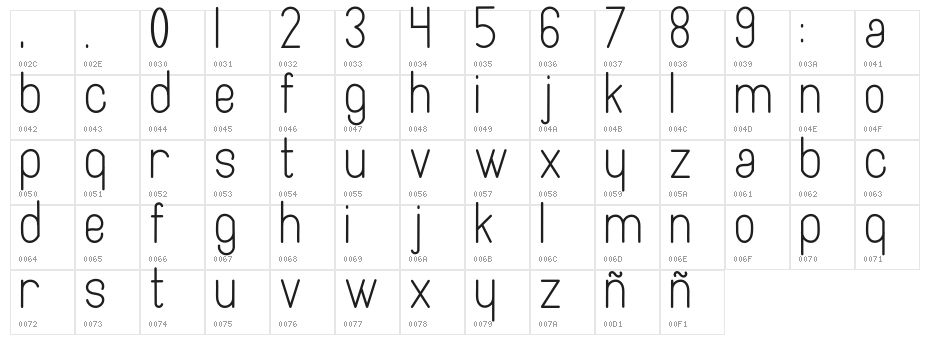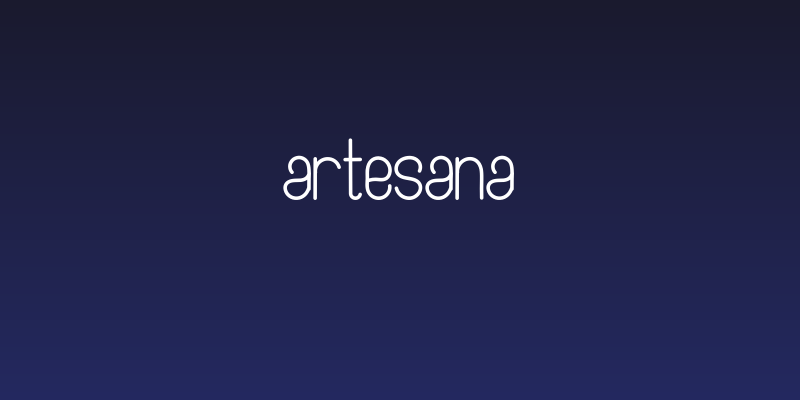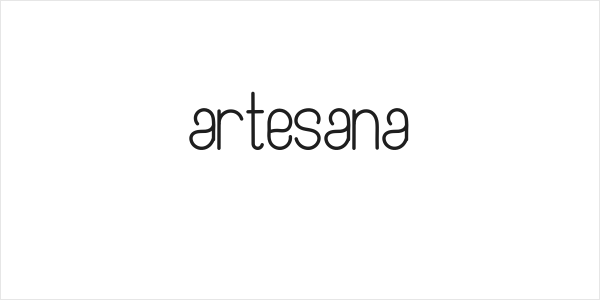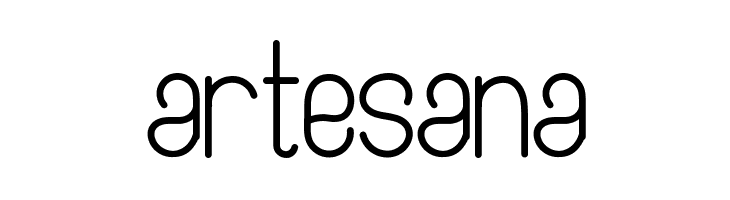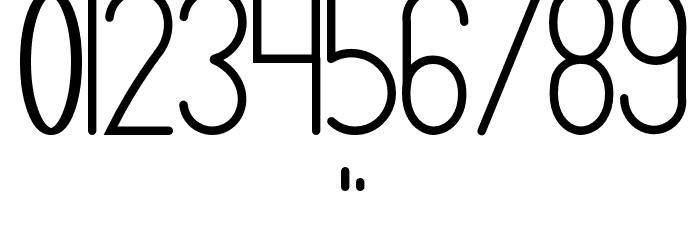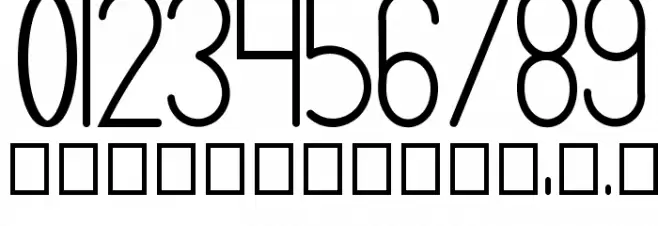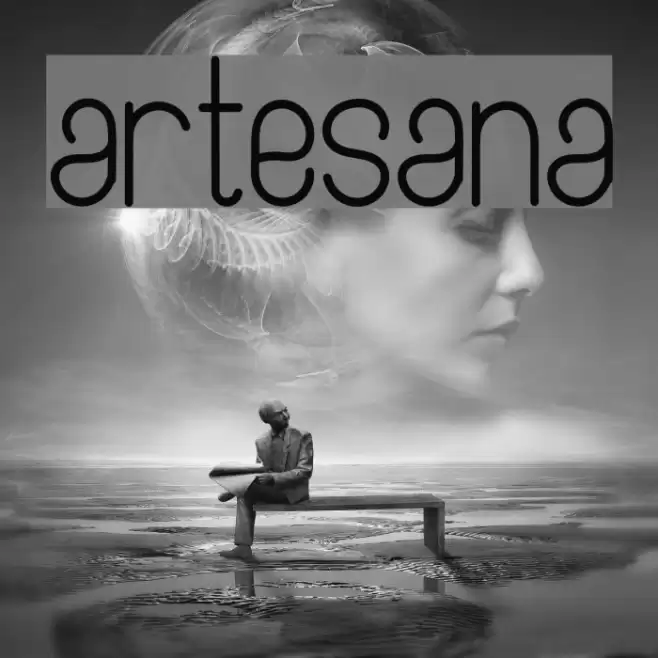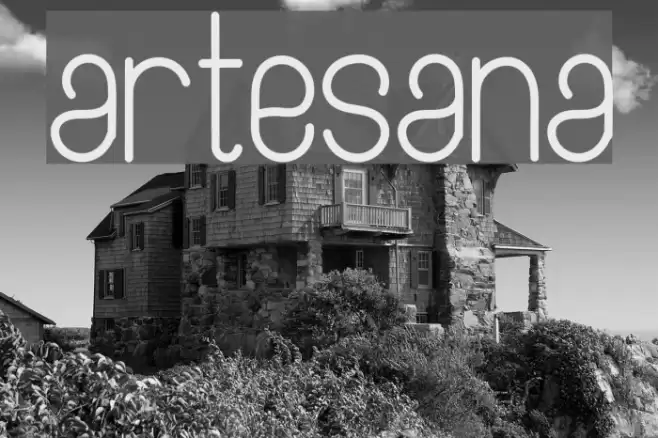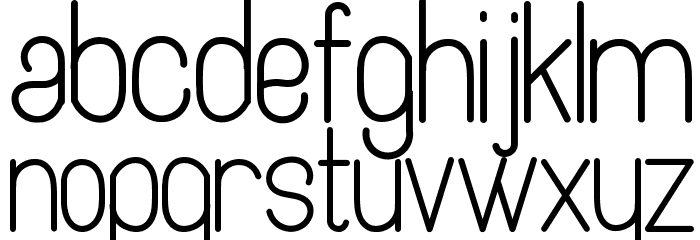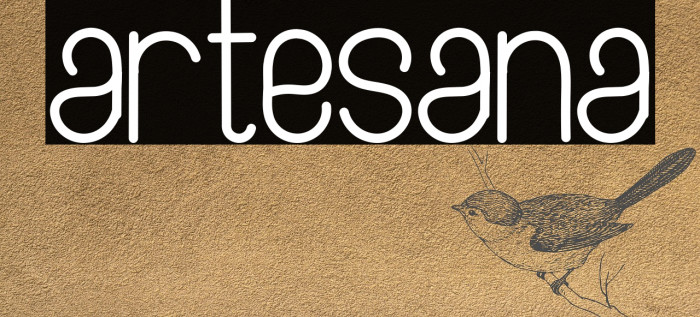
Artesana Font
Artesana Description
This font features a sleek, modern design with rounded edges and a clean, minimalist aesthetic. The characters are uniform in height, creating a harmonious and balanced appearance. The lowercase letters have a distinctive looped style, particularly noticeable in letters like 'a', 'b', and 'd', which adds a touch of elegance. The uppercase letters maintain the same rounded and smooth characteristics, ensuring consistency throughout the typeface. The numerals are clear and straightforward, with a slight curvature that complements the overall design. This font is versatile, suitable for both digital and print media, and can be used to convey a contemporary and professional tone.